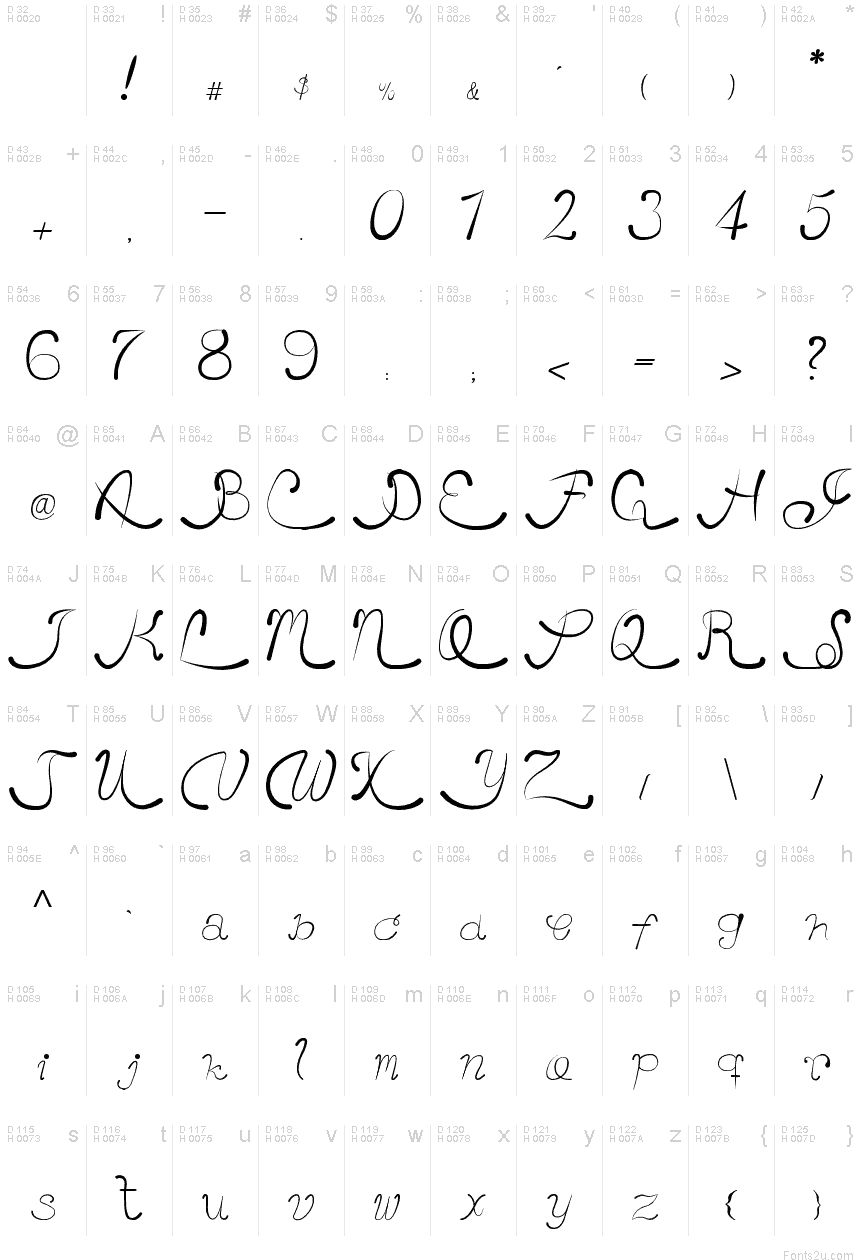
Single is a free calligraphic script with sweeping capitals and pronounced changes from hairline strokes to broad, ink-like curves. Its letters use long loops, deep descents, and generous flourishes around compact connections, making the larger gestures feel even more expansive. The lowercase forms stay notably delicate.
Designers working in bridal, fashion, and boutique hospitality will find it suited to invitations, fragrance packaging, and refined event stationery. The dramatic capitals can act almost like ribbon illustrations on menus or beauty branding, with their looping strokes echoing bows, silk, and other flowing decorative motifs.
Single